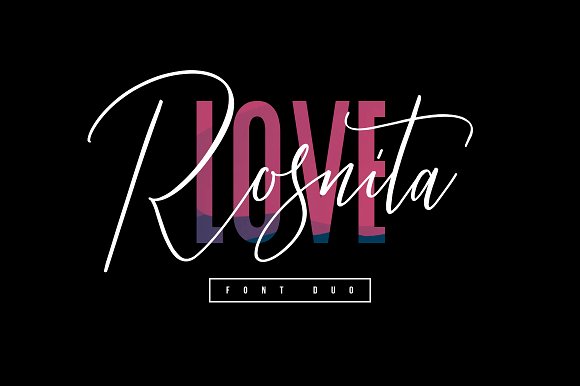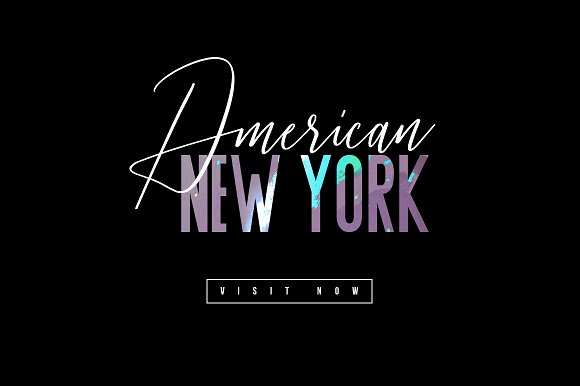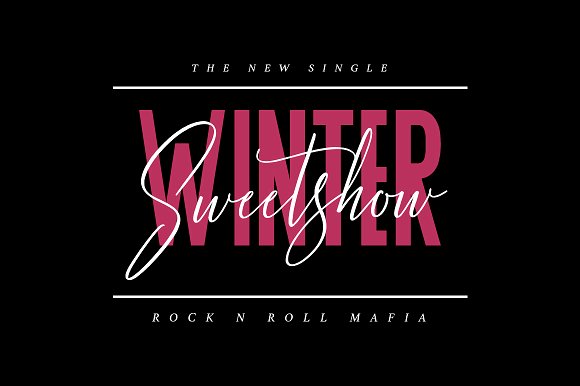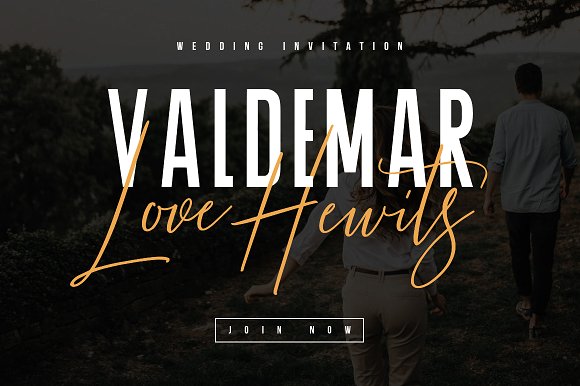
Love Rosnita – Font Duo
Give your designs an authentic handcrafted feel. “Love Rosnita” is perfectly suited to signature, stationery, logo, typography quotes, magazine or book cover, website header, clothing, branding, packaging design and more.